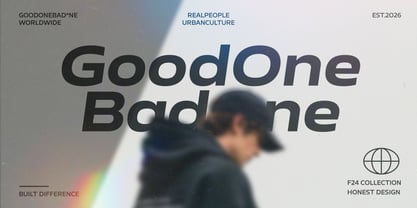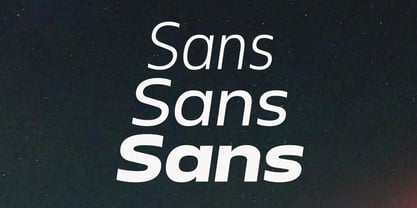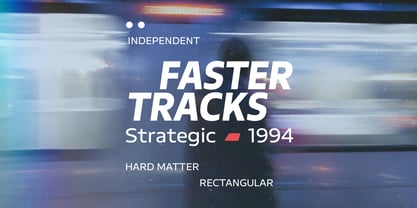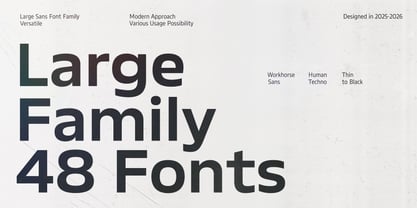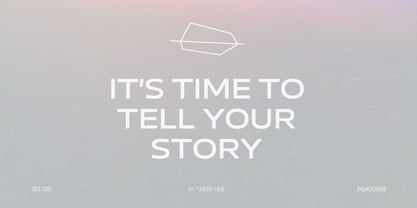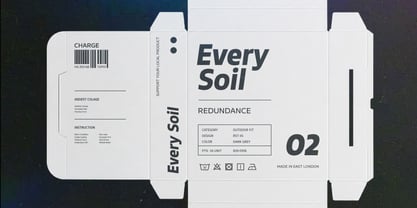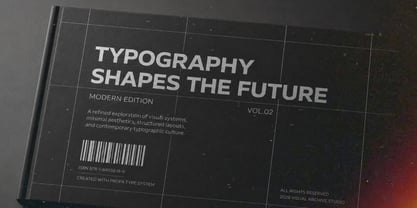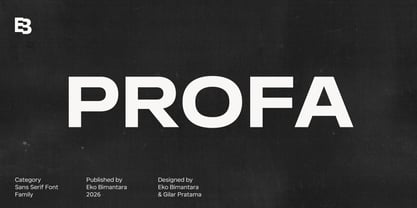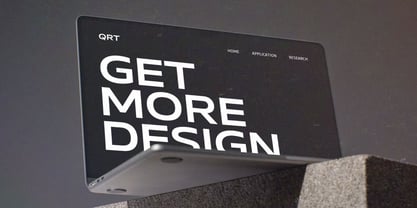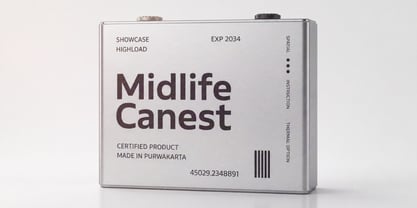
Profa
by Eko Bimantara
The Profa Font Family was designed by Eko Bimantara and published by Eko Bimantara. Profa contains 50 styles and family package options.
Profa is a sans serif large font family built for bold communication and flexible visual systems. Featuring 48 styles across Thin to Black weights with Condensed, Normal, and Expanded widths, it delivers a clean geometric structure balanced by subtle humanist details. Designed to perform seamlessly in branding, editorial, interface, packaging, and large-scale typography, Profa combines precision, versatility, and modern attitude into a highly adaptable type system for professional creative work.
About Eko Bimantara
Eko Bimantara is a type designer from Indonesia. Always has an intention to creating fonts that not only look great but also perform across a wide range of mediums and also across wide range of theme. The goal is to give designers the tools to make their projects that speaks a lot with various expression. Eko Bimantara’s fonts are featured in everything from corporate identities to street art posters, and have numerous ideas and concept ready to expand for fresh fonts for years further.